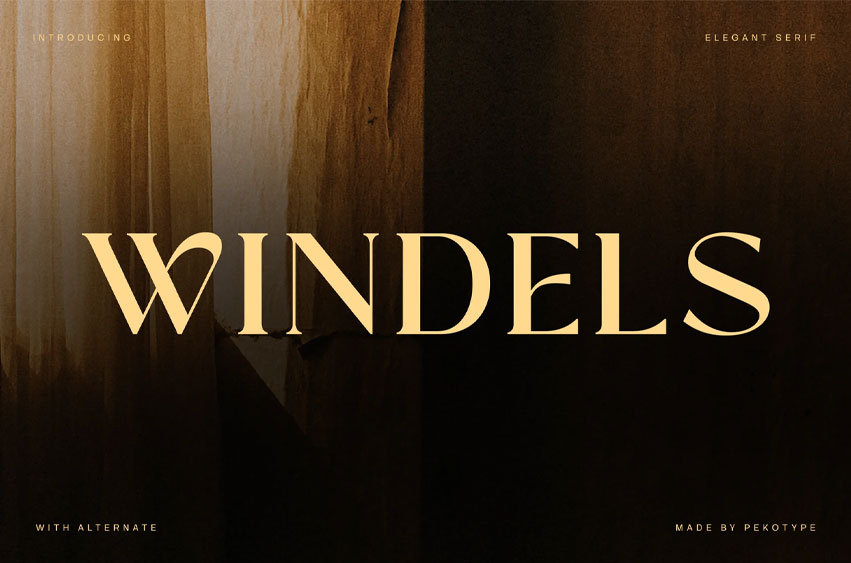
Windels Font
Windels Font is an elegant serif font with refined letterforms, graceful curves, and a timeless high-end feel. Its sophisticated style works beautifully for designs that need a clean, classy, and premium look.
Perfect for luxury logos, fashion branding, beauty products, wedding invitations, jewelry, editorial layouts, packaging, boutique brands, magazines, and elegant social media designs. Windels adds a polished and stylish touch to both modern and classic projects.